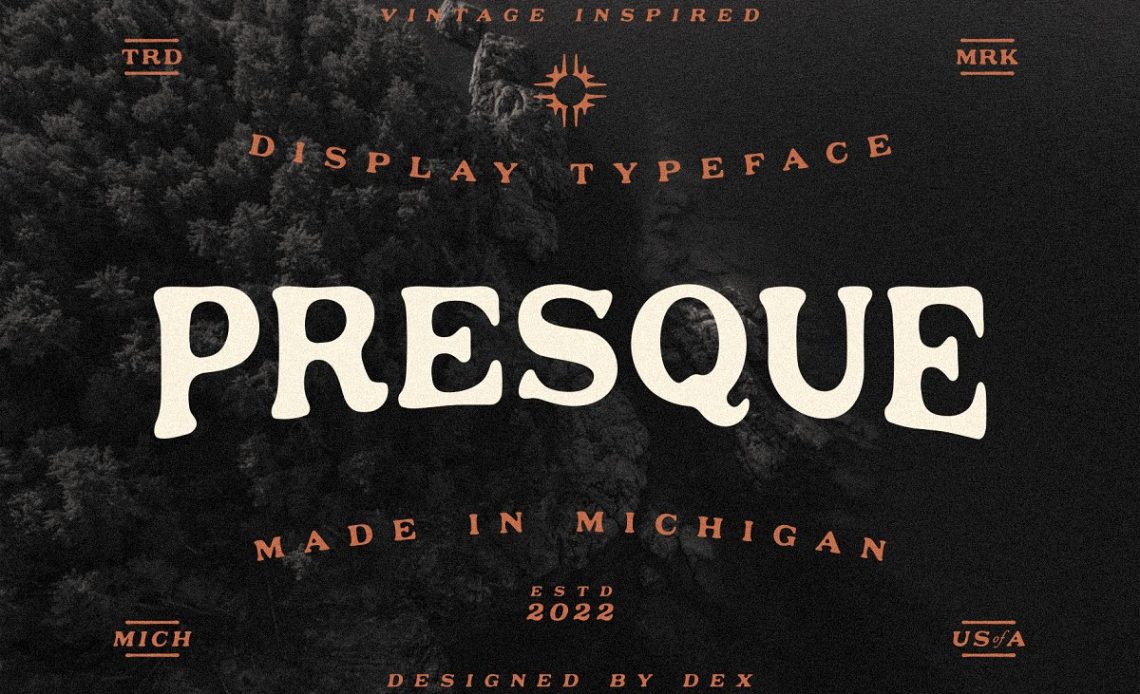
Are you tired of boring and uninspiring fonts? Look no further than Presque Typeface, the best font for DVD menus and more! Created by the talented Dexter Stevens, this font family is inspired by the rugged coastline and weathered land surrounding Lake Superior, or as the Ojibwe people called it, gichi-gami.
With its rounded rocks and wind-battered signs, Presque embodies the resilience and tenacity of those who lived in the area long ago. But this font is not just about the past. It's weathered and worn yet proud, making it the perfect choice for modern designs that want to capture the essence of strength and character.
Whether you're creating a DVD menu or designing a website, Presque is the font that will make your project stand out. It comes in two styles, Presque and Presque Oblique, giving you the flexibility to choose the one that suits your needs best.